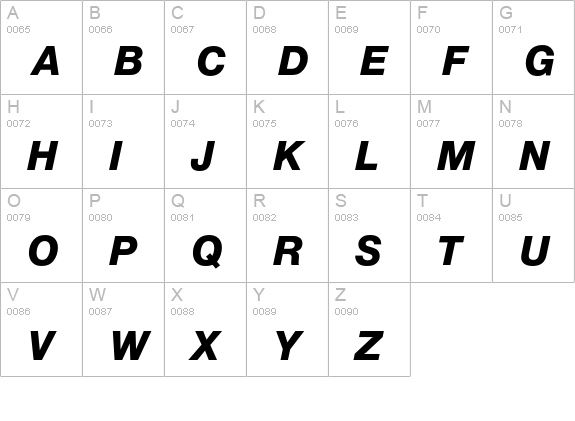
Introducing Olnova-ExtraBoldIta font, a stunning display typeface that exudes elegance and sophistication. This font strikes the perfect balance between boldness and refinement, making it ideal for creating eye-catching headlines, logos, posters, and more. With its sleek design and distinctive italicized style, Olnova-ExtraBoldIta truly stands out from the crowd. Whether you're looking to make a bold statement or add a touch of flair to your designs, this font is sure to impress. And the best part? Olnova-ExtraBoldIta is completely free to download at FontsMarket.com! That's right, you can elevate your projects with this premium font without breaking the bank. Don't miss out on this opportunity to enhance your creative endeavors with Olnova-ExtraBoldIta – download it today and take your designs to the next level.